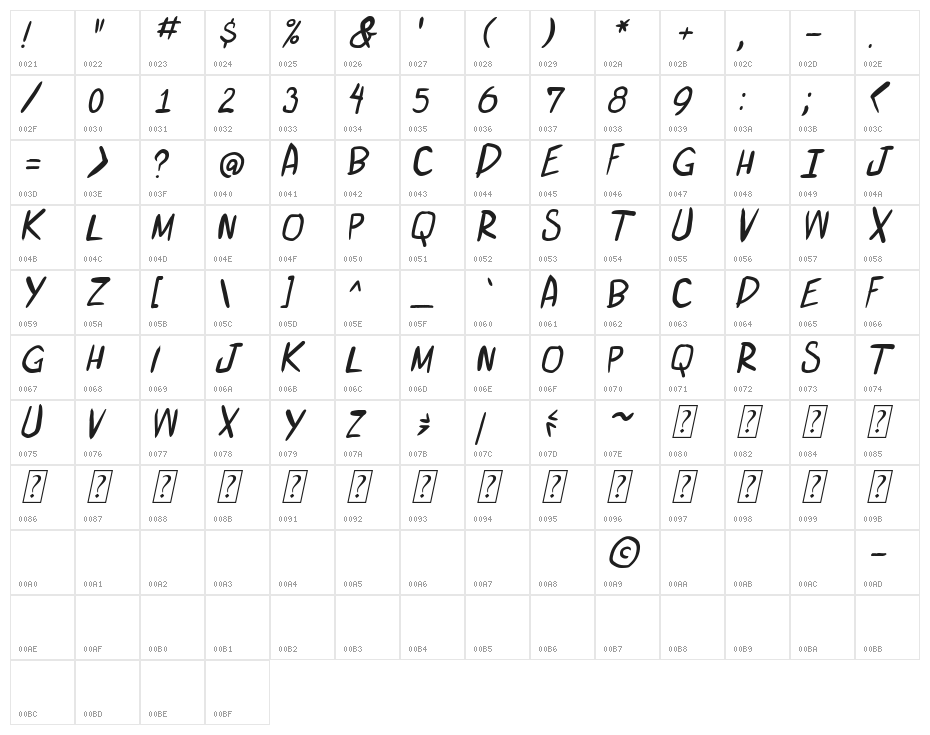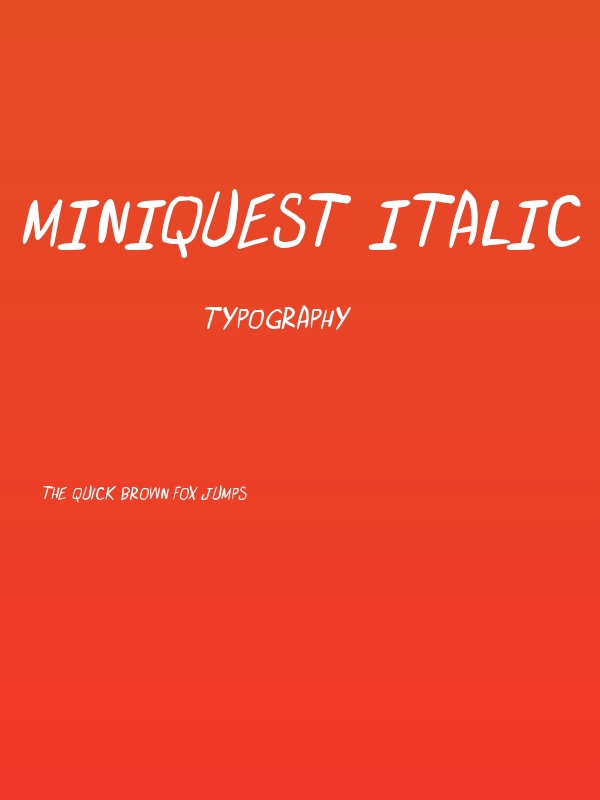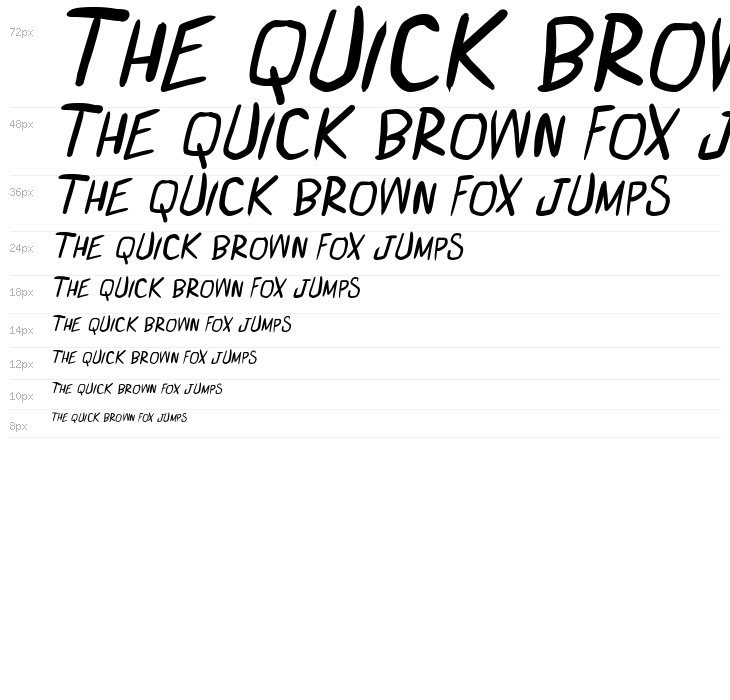
miniquest Italic Font
miniquest Italic Description
This font features a dynamic and energetic style with a handwritten appearance. The letters are slightly slanted, giving it an italicized look that adds a sense of motion and fluidity. The strokes are bold and confident, with varying thickness that provides a lively contrast. The characters are well-spaced, maintaining readability while preserving the casual, informal aesthetic. This font is versatile, suitable for projects that require a personal touch or a creative flair. It captures attention with its unique style, making it ideal for headlines, posters, and artistic designs.
| Use Case | Headlines, Posters, Artistic designs |
| Proposed Projects | Ideal for creative projects such as posters, headlines, branding, and artistic designs. |